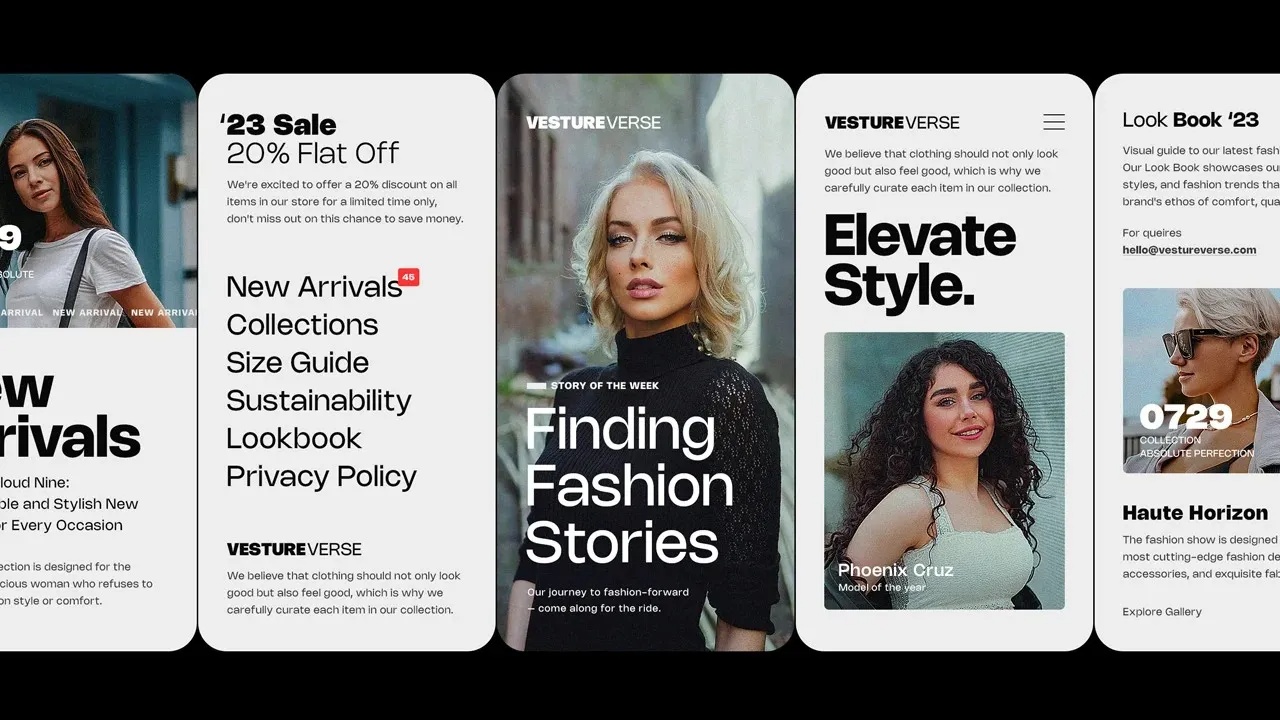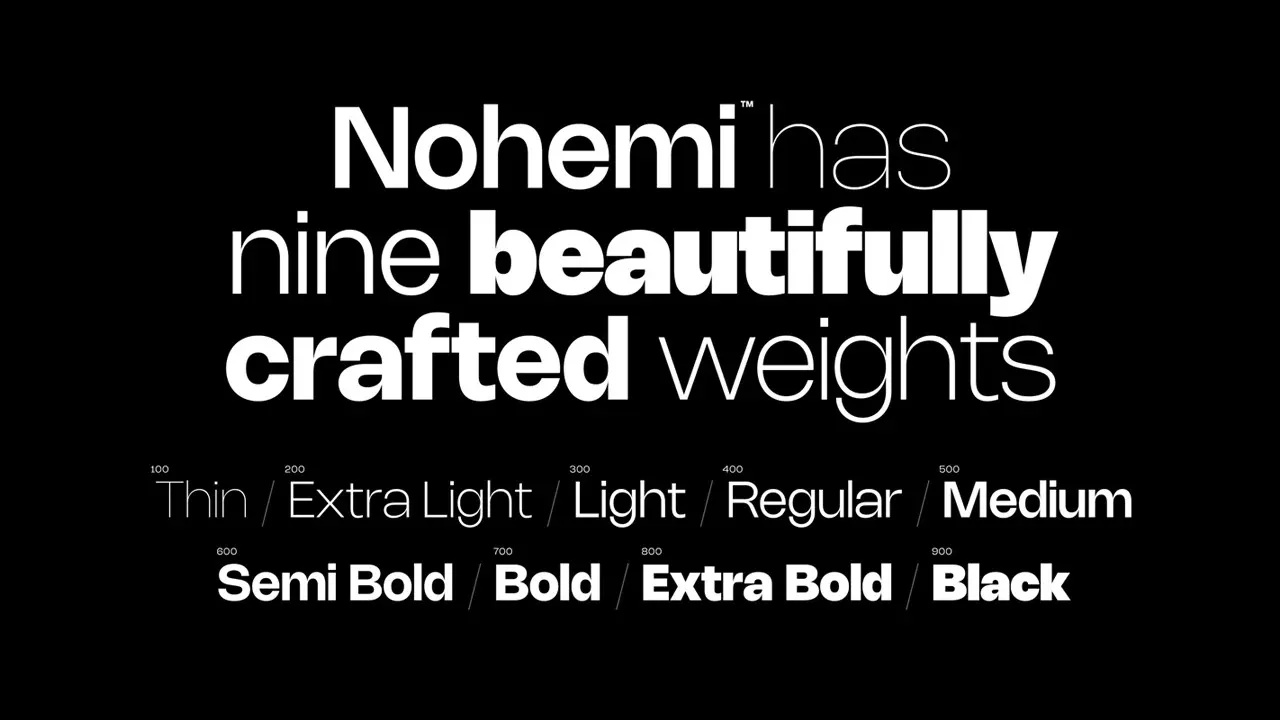
Nohemi Font
NOHEMI is a versatile sans-serif font family featuring nine weights, making it ideal for branding, advertising, publications, and product design. Its minimalistic and modern aesthetic allows it to seamlessly adapt to brand identities, websites, product packaging, and posters. Whether for startups or established businesses, NOHEMI provides a professional yet contemporary touch.
This typeface stands out for its smooth curves and clean design, making it suitable for both print and digital media. Recognized for its flexibility, NOHEMI is easy to modify and customize to suit various creative projects.
Nohemi Sans Serif Font